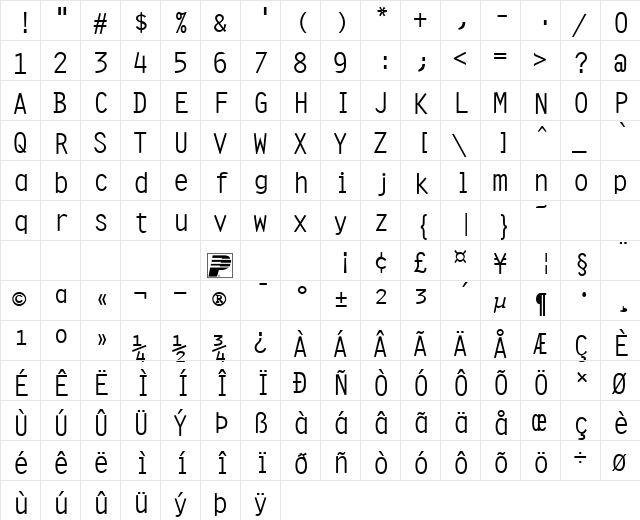
PT Regula Large Normal Font Preview
PT Regula Large Normal
Design Context for PT Regula Large Typeface
PT Regula Large offers clean, dependable letterforms without strong stylistic allegiance, making it a practical choice for designers who need flexibility.